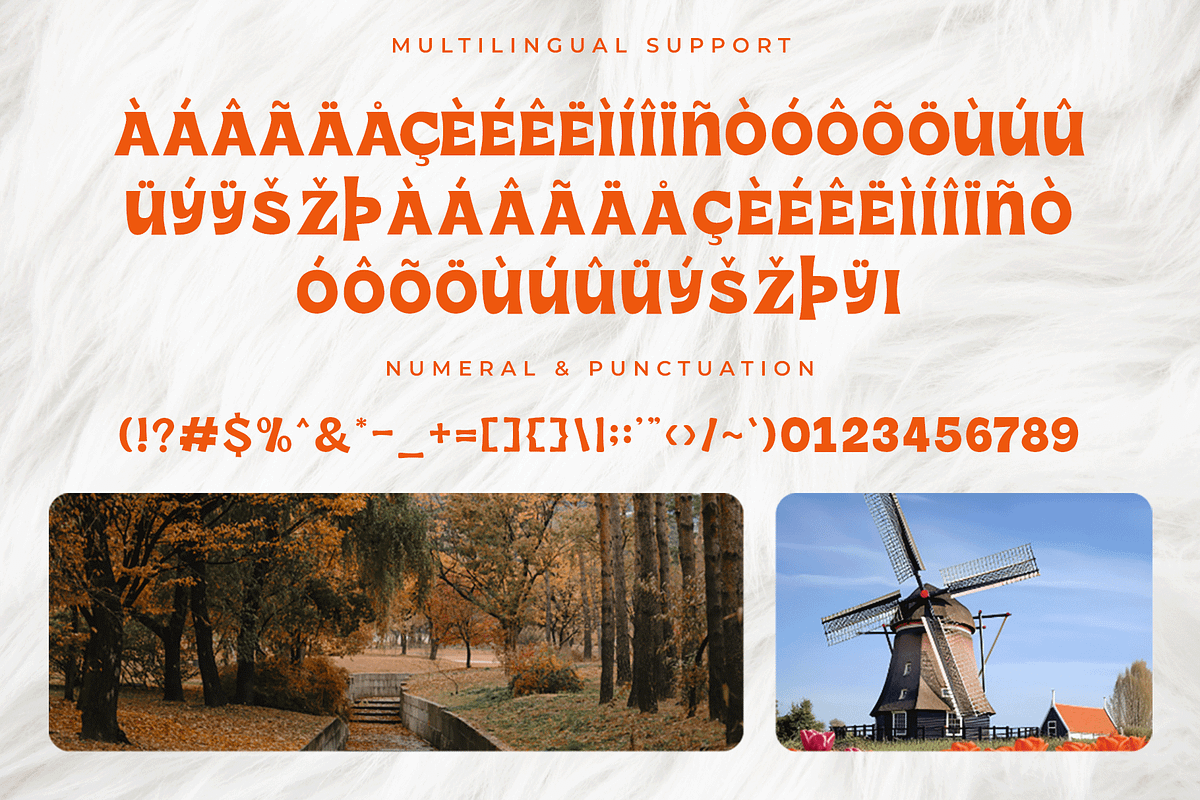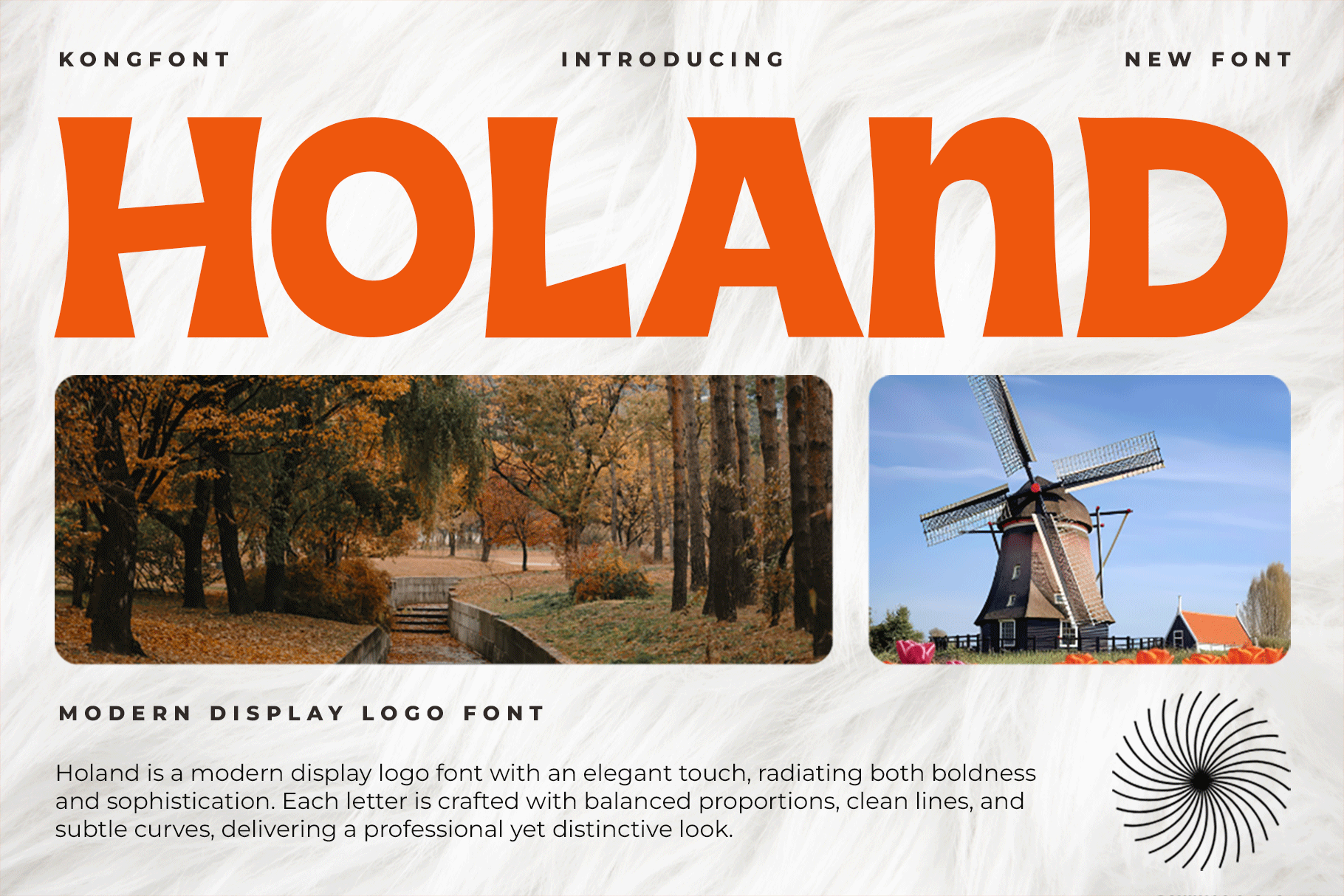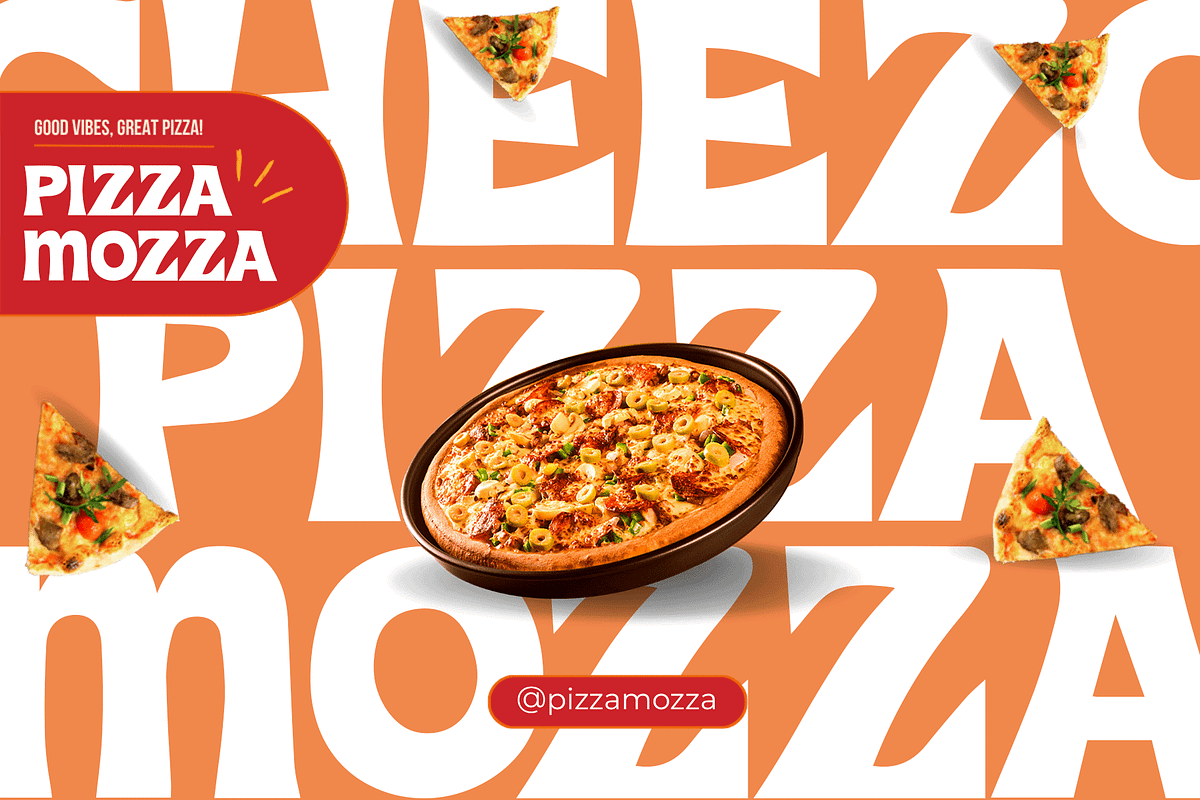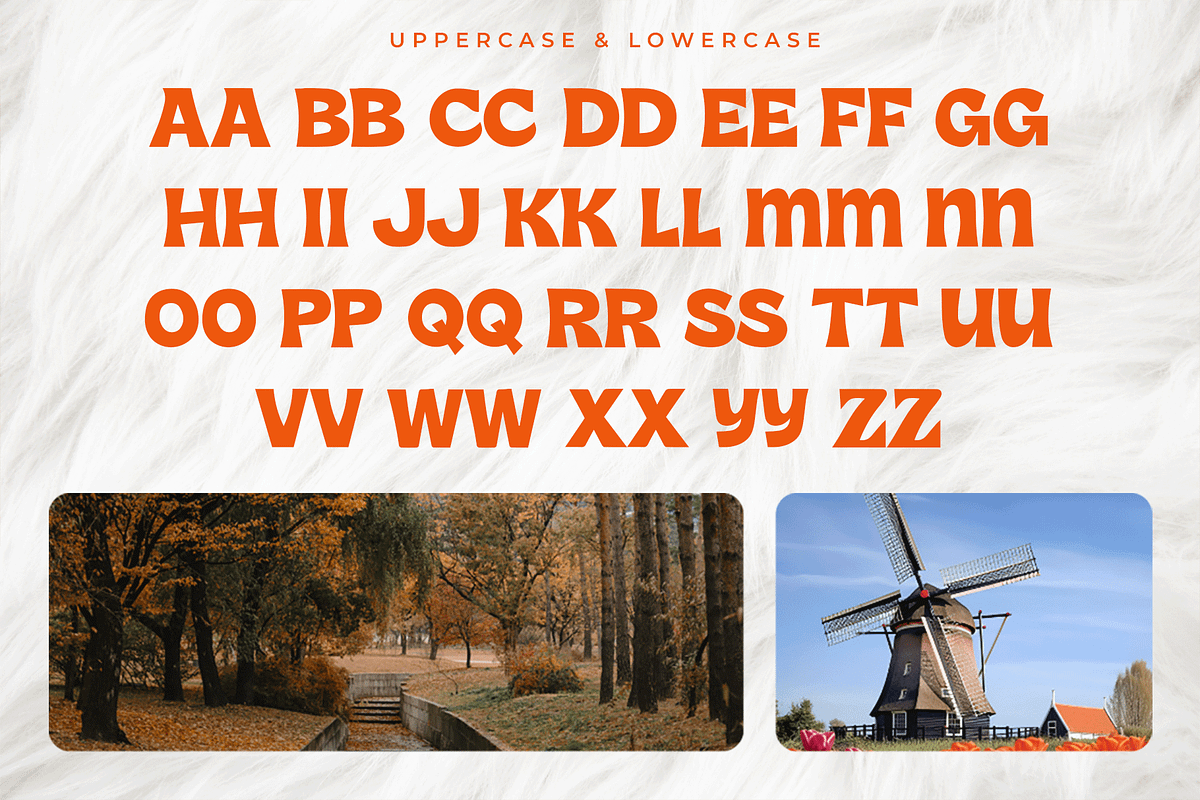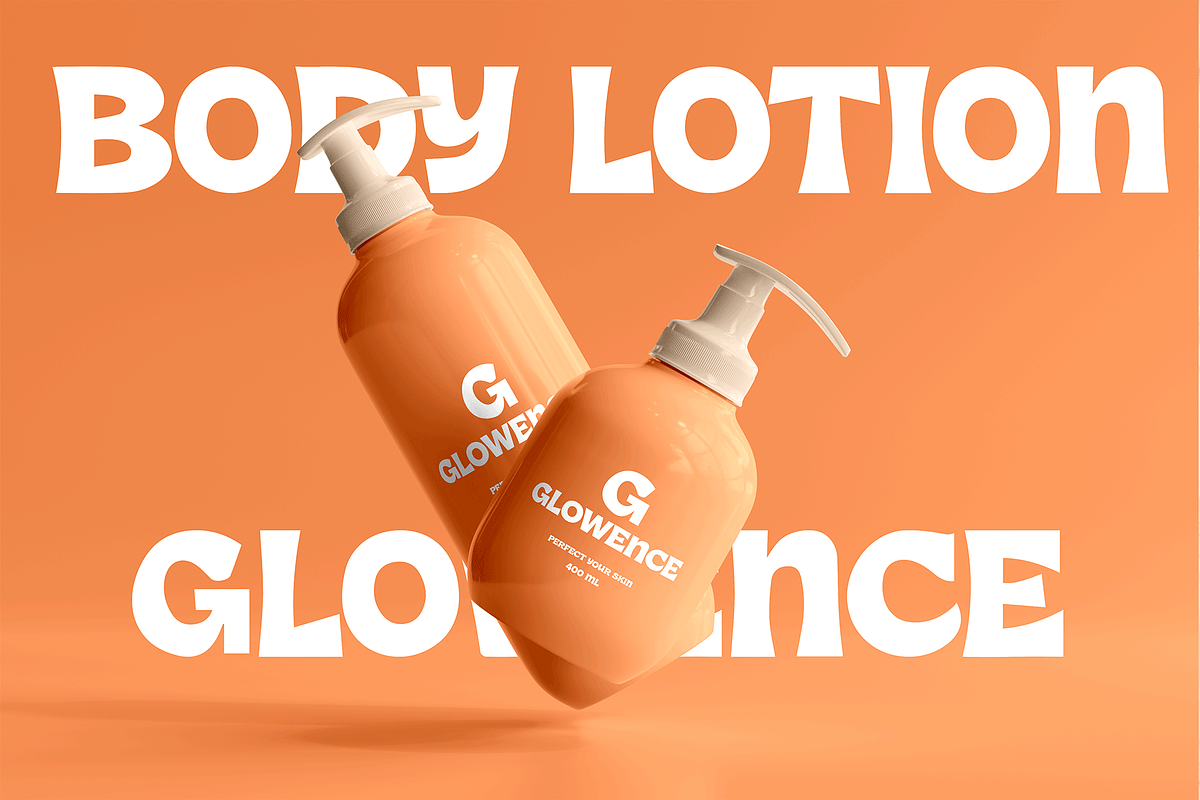
Holand - Modern Display Logo Font
Introducing "Holand," a modern display logo font crafted to deliver striking, memorable designs. With its clean lines, bold shapes, and contemporary flair, Holand is built for brands and creatives who want their visuals to make a statement.
Perfect for logos, headlines, posters, product packaging, and digital media, Holand combines modern minimalism with distinctive personality. Its strong letterforms offer high legibility while maintaining an elegant, stylish appeal—making it versatile for both upscale branding and trendy, creative projects.
This font includes uppercase, lowercase, numerals, punctuation, and multilingual support, giving you complete flexibility for any design needs. Whether you’re launching a fresh brand identity or creating impactful marketing visuals, Holand ensures your work captures attention and leaves a lasting impression.